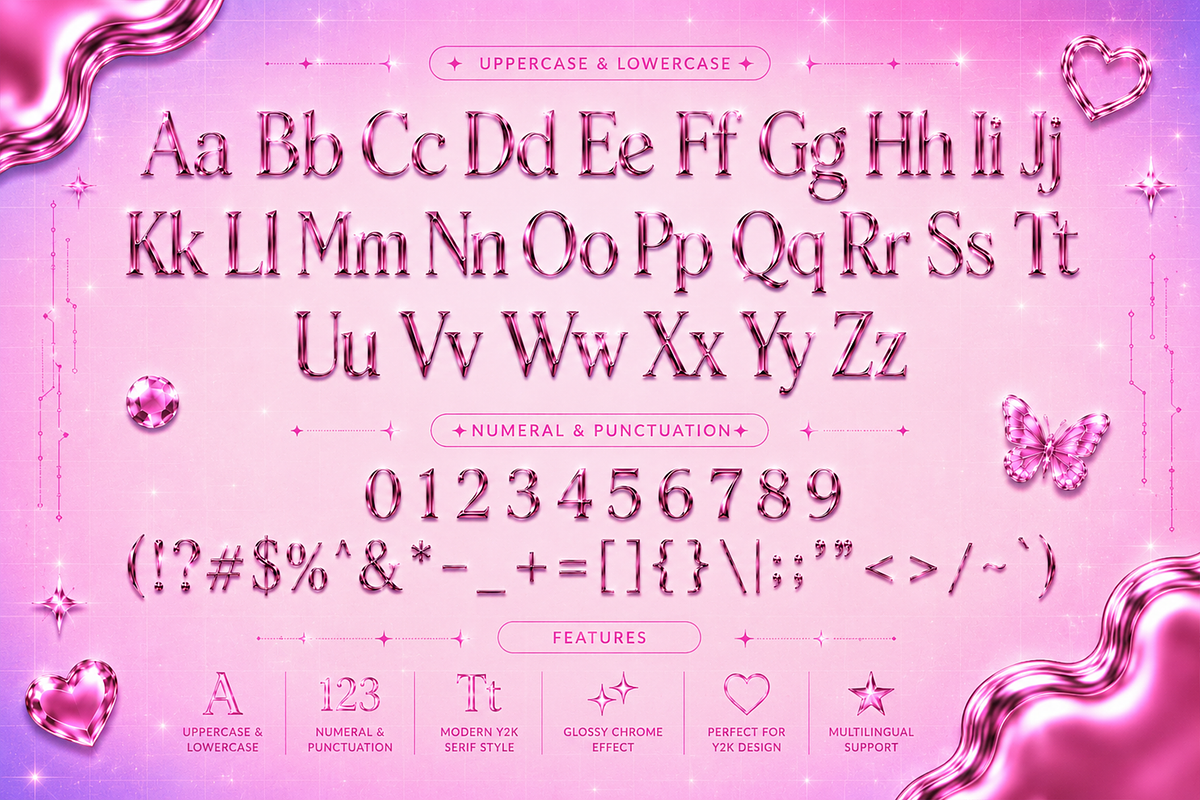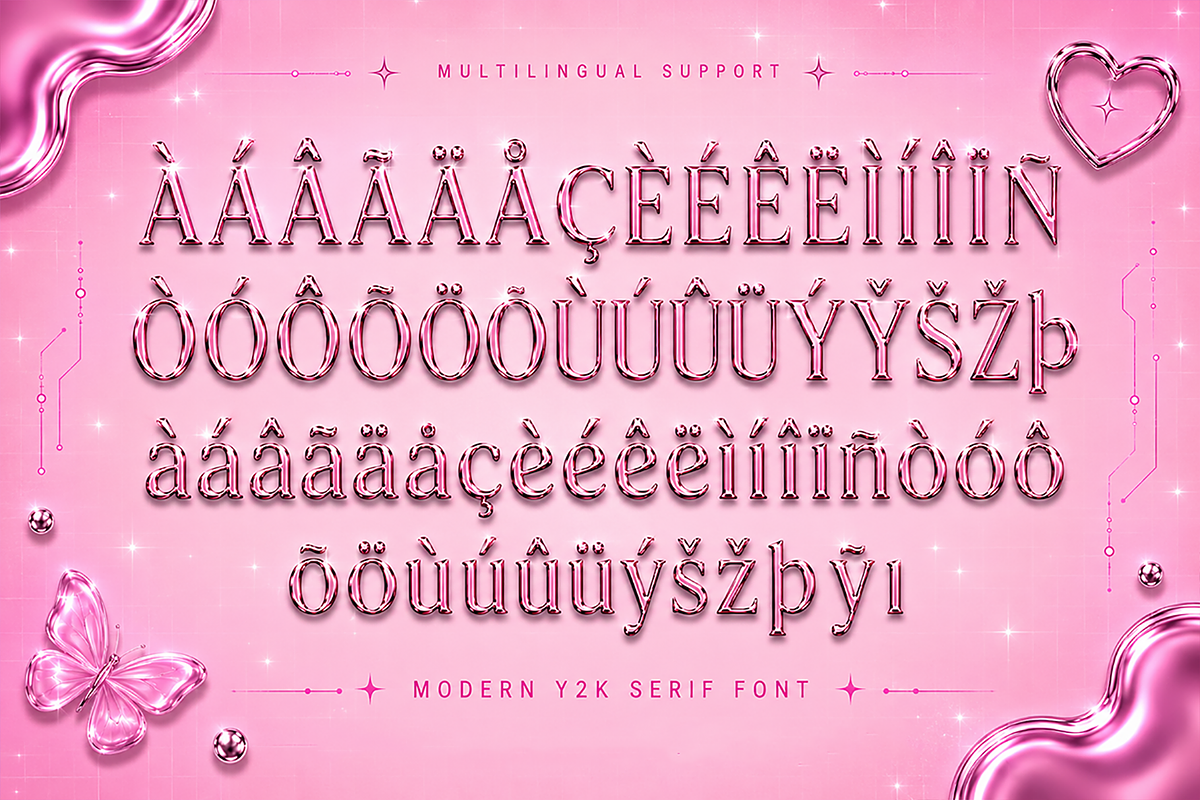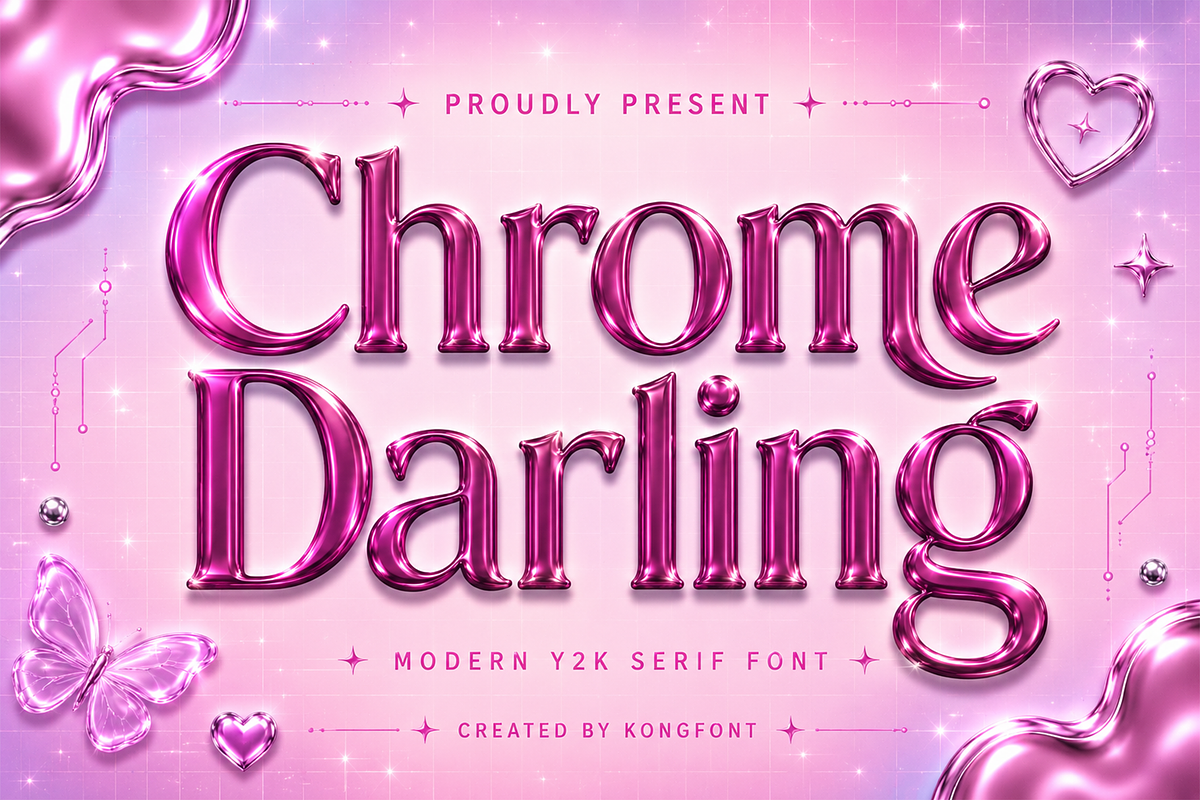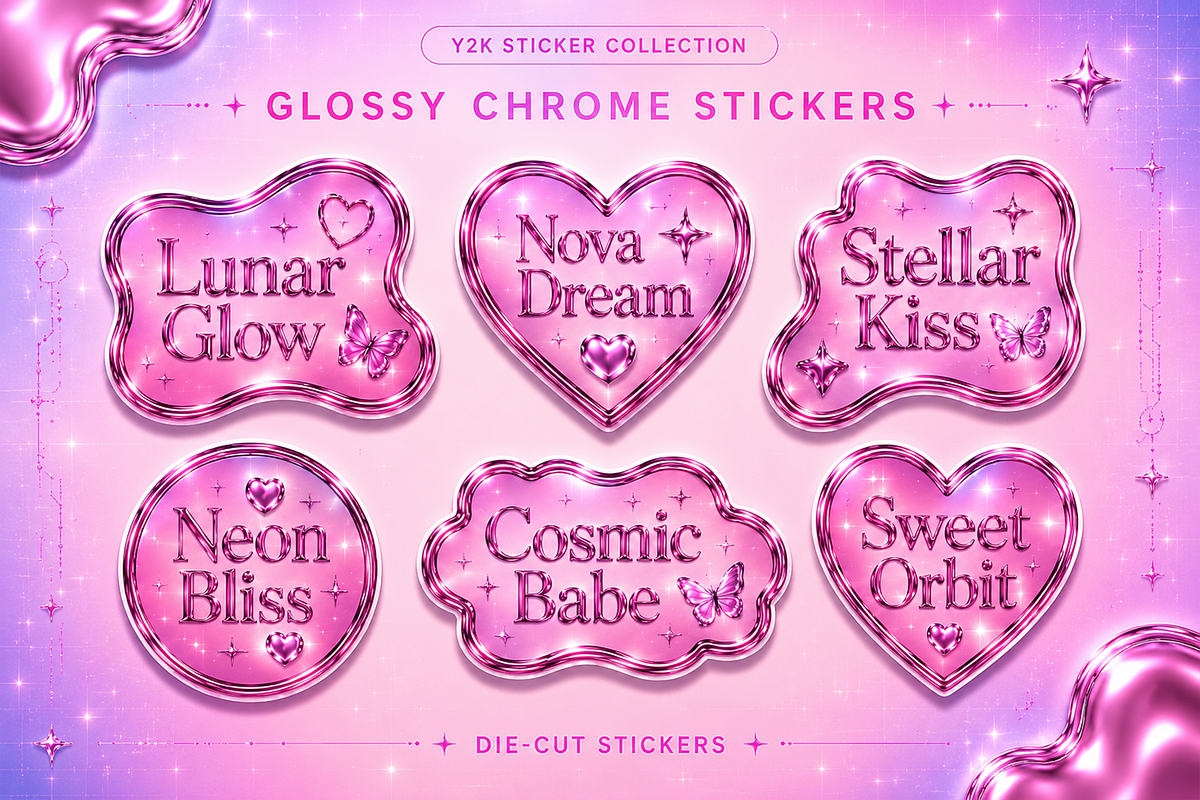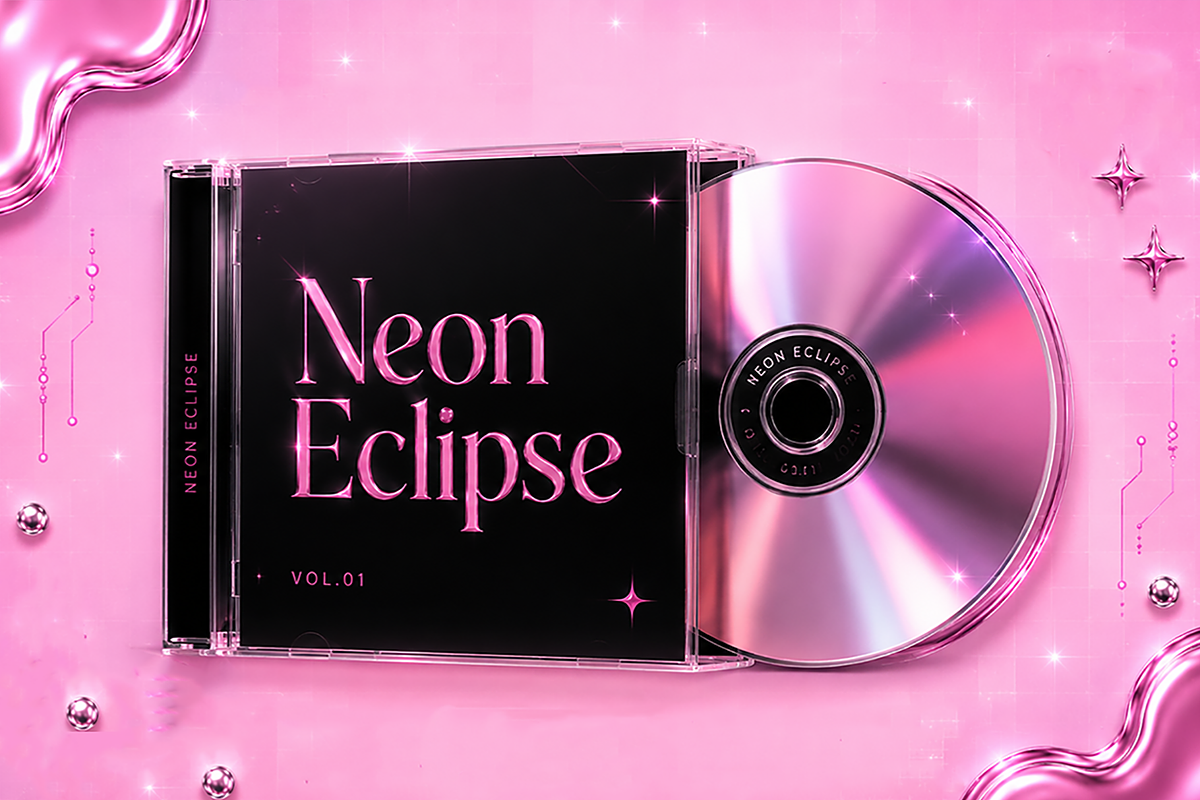
ChromeDarling - Modern Y2K SerifFont
Chrome Darling - Modern Y2K Serif Font
Chrome Darling is a modern Y2K serif font inspired by the iconic aesthetics of the early 2000s. Combining elegant serif details with futuristic curves and chrome era styling, this typeface delivers a nostalgic yet fashion forward look that perfectly captures the spirit of the Y2K revival.
Featuring stylish letterforms, balanced proportions, and eye catching details, Chrome Darling is crafted to stand out in headlines while maintaining a refined and elegant appearance. The font includes uppercase and lowercase letters, numerals, punctuation, and multilingual support for maximum versatility.